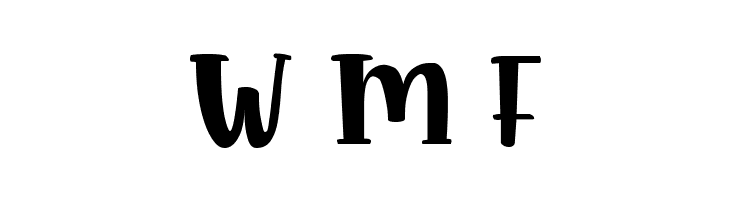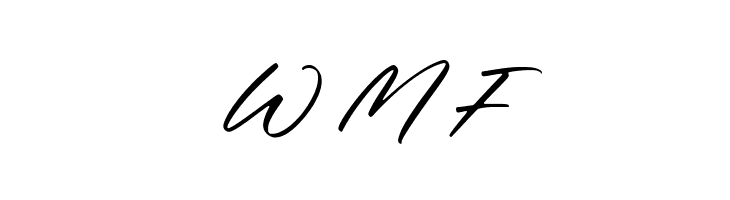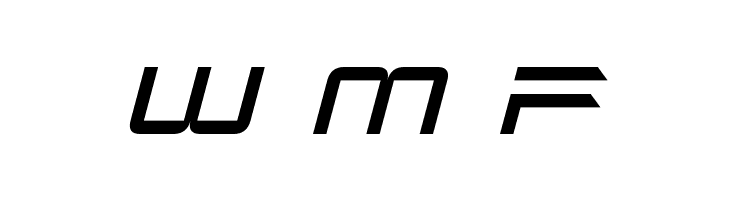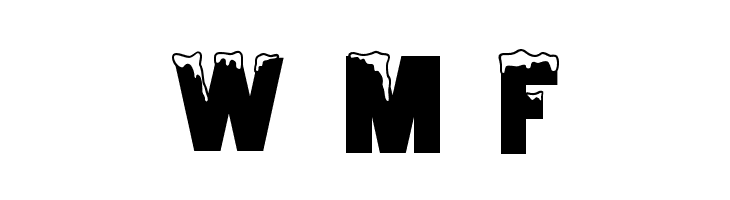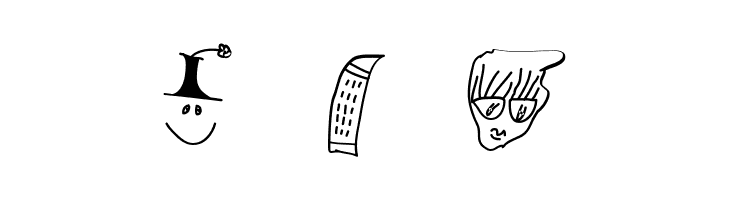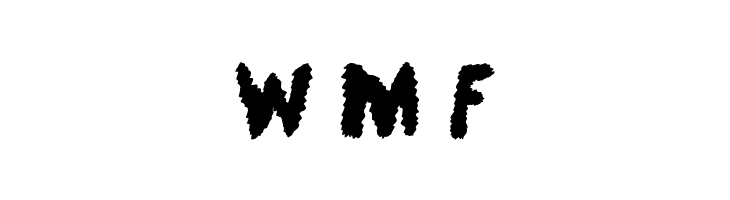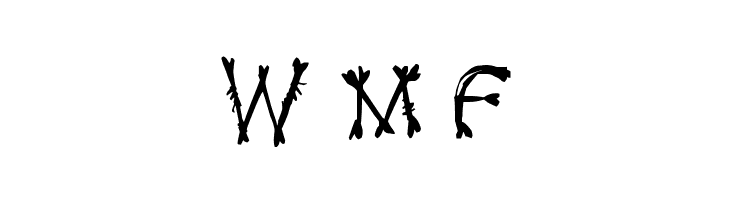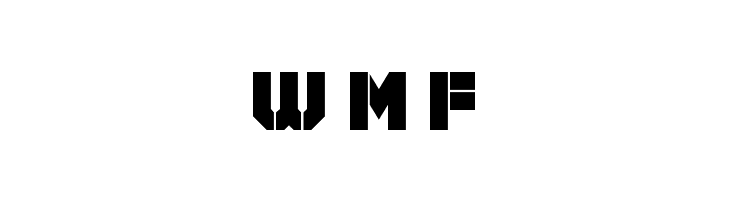
• Fresh Pineapple
( Fonts by Zeenesia Studio )
• FreshBone
An edgy, bone-like font with sharp, irregular edges and a rugged appearance.
• FromKarlasIdeas
A whimsical, decorative font featuring abstract, cartoon-like faces and figures.
• FROZBITE
A bold, festive font with snow-capped uppercase letters.
• Fun Raiser
A playful, bold font with rounded edges and a slightly condensed structure.
• Future Z Italic
A futuristic italic font with sharp angles and a sleek, modern design.
• Fuzzy Bear
A playful, bold font with a fuzzy texture and lively appearance.
• Galaksie
A dynamic and elegant script font with flowing, cursive letterforms.
• Galaxy Corps